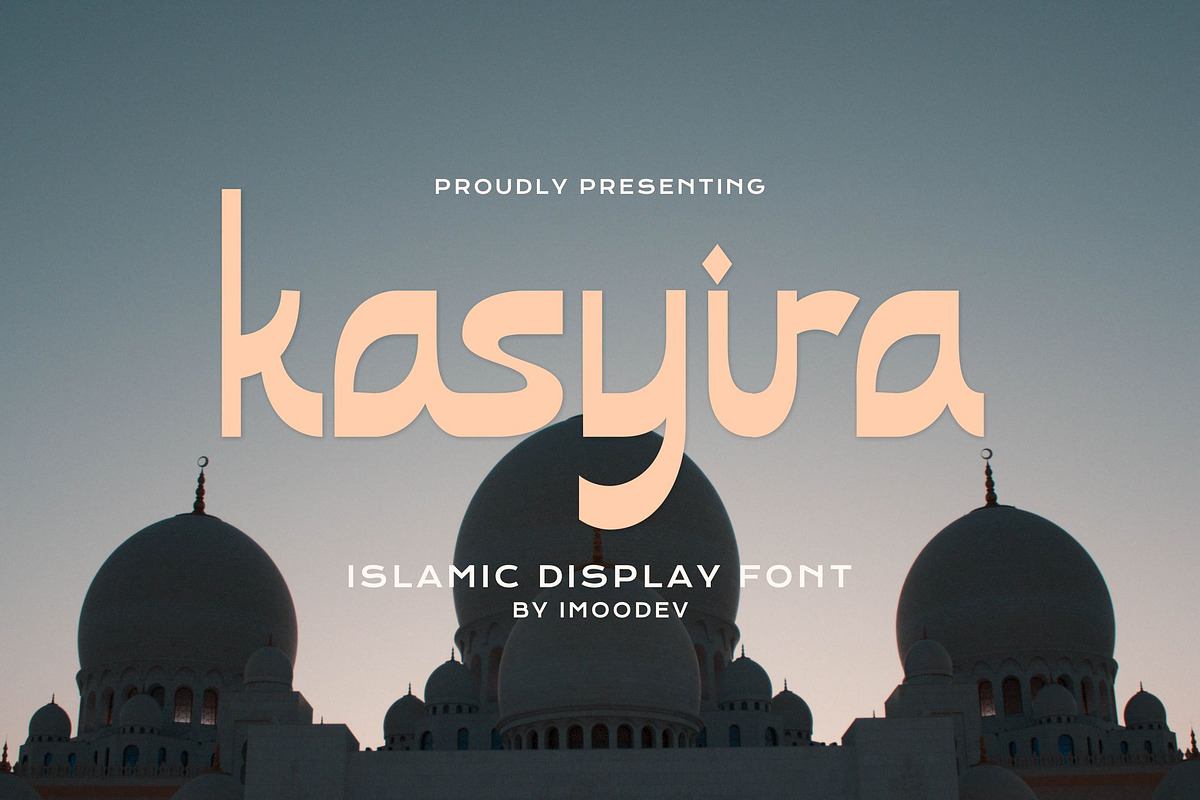
Kasyiro - Islamic Display Font Free Download
Please note, to use this font for commercial purposes, you must purchase the full version. Kasyiro is an elegant and artistic Islamic display font that captures the beauty and sophistication of traditional calligraphy. With its intricate curves and refined design, this font is perfect for projects related to Islamic culture, religious events, book covers, and branding. Whether you're working on invitations, logos, or elegant typography, Kasyiro adds a touch of grace and cultural depth to your designs. Test it out and enjoy free download access for personal use. Explore the exquisite design of Kasyiro - Islamic Display Font Free Download before purchasing the commercial license. Elevate your projects with the stunning beauty of Kasyiro.